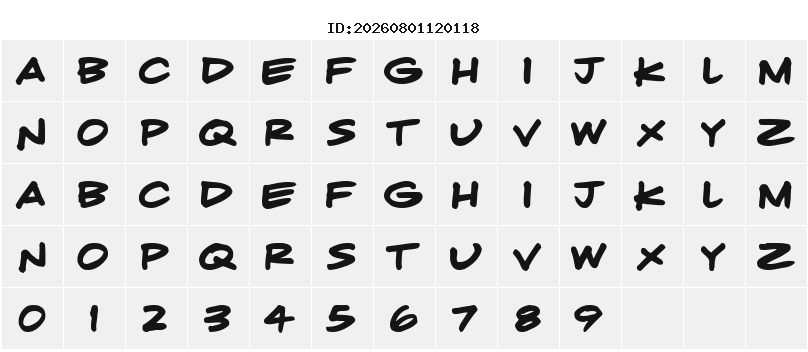
• Font Name: LHF Comic Caps Regular
• Font ID: LHF Comic Caps Regular
• Full Font Name: LHF Comic Caps Regular
• PostScript Name: LHFComicCapsRegular
About LHF Comic Caps Regular.ttf
LHF Comic Caps Regular.ttf is a modern, elegant sans-serif font designed for ultimate readability and visual harmony. Perfect for branding, headlines, web design, and print materials.